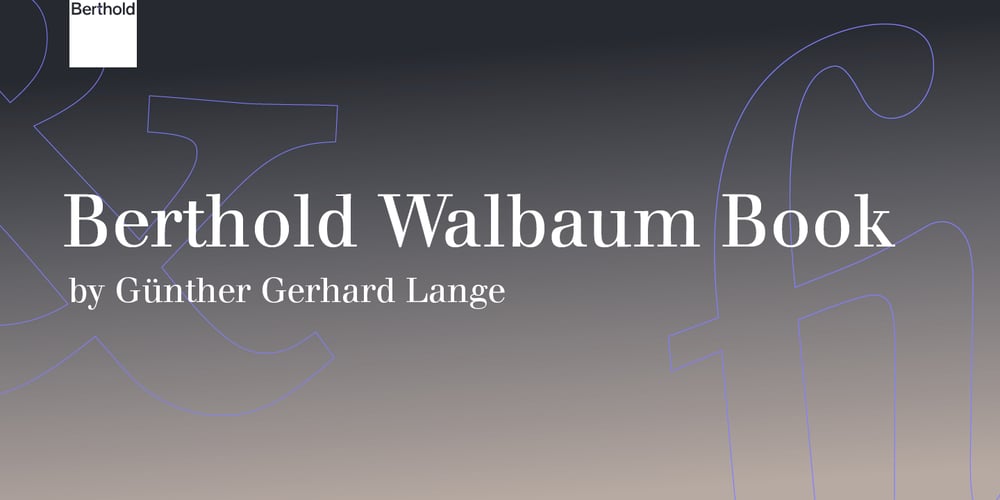
Berthold Walbaum Book
Berthold Walbaum Book font
Berthold Walbaum Book Font Family was designed by Günter Gerhard Lange and published by Berthold. Berthold Walbaum Book contains 6 styles and family package options. Justin Erich Walbaum’s typeface of 1804 was cut by hand, thus, varying in forms and proportions in each size. Günter Gerhard Lange’s Berthold Walbaum Book is based on the 16 point size of Walbaum’s 1804 typeface and has great contrast in stroke weight. Berthold released Berthold Walbaum Book in 1975. It is well-suited for body copy, particularly for formal documents that need a contemporary flair, as well as for headlines.